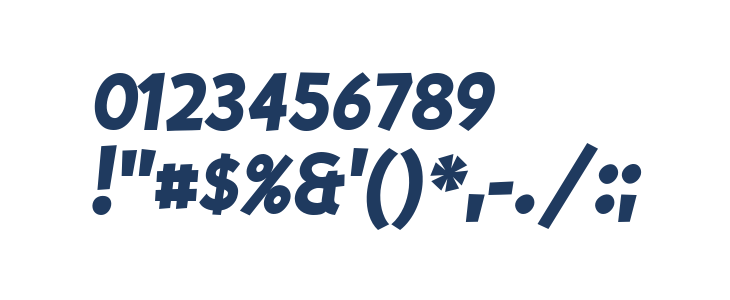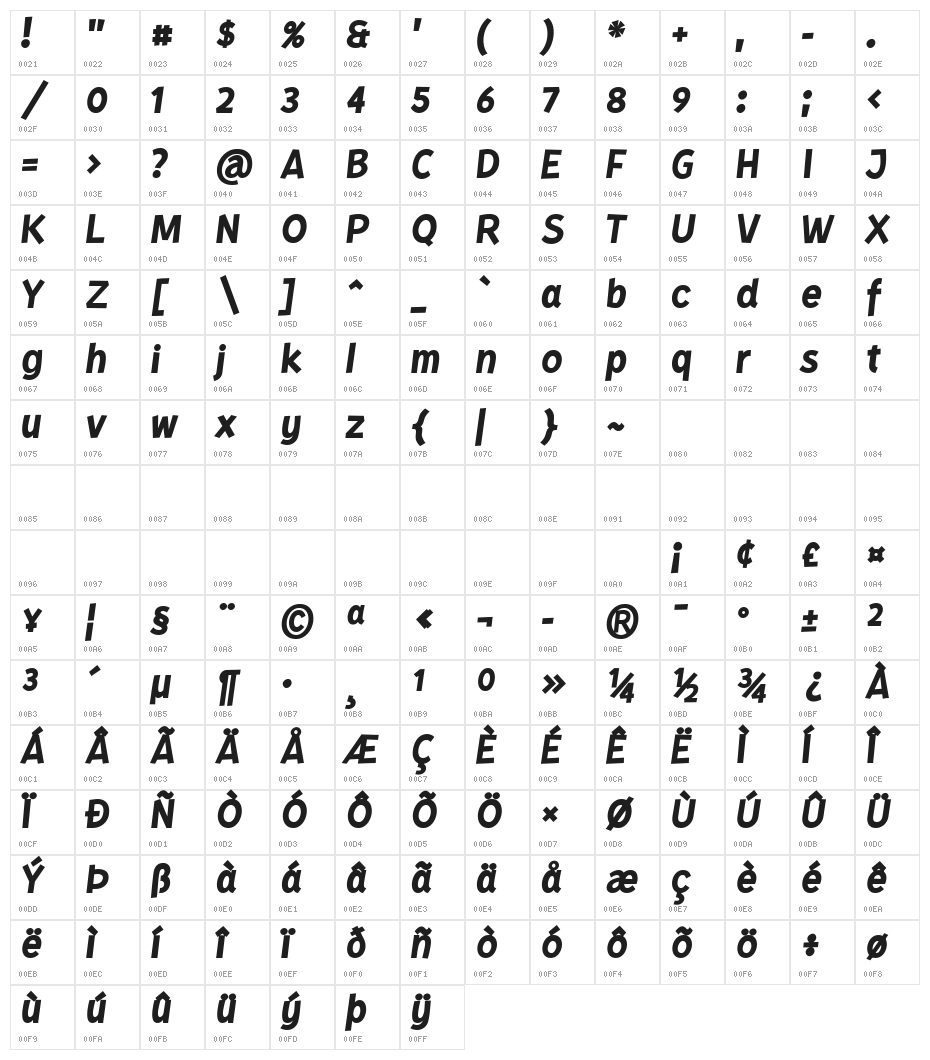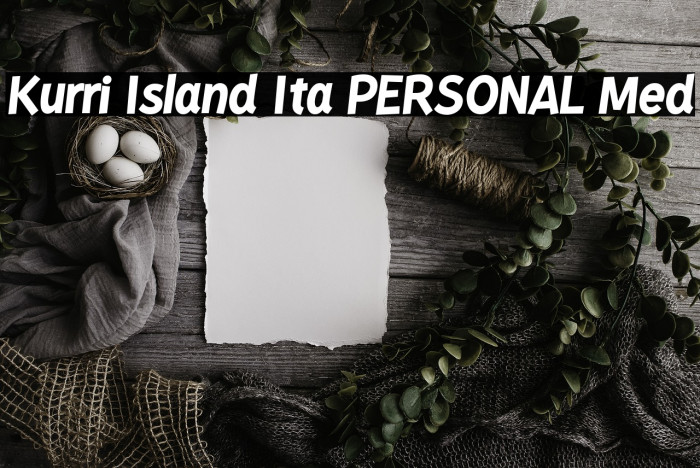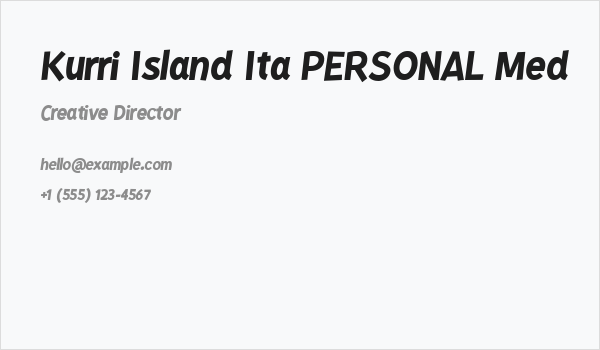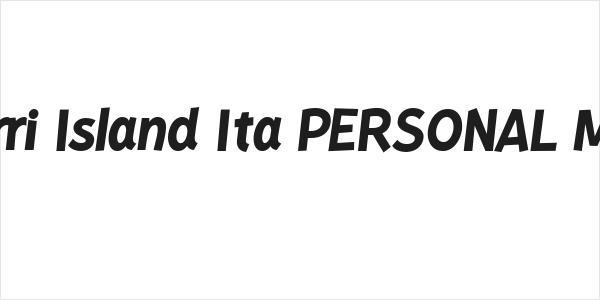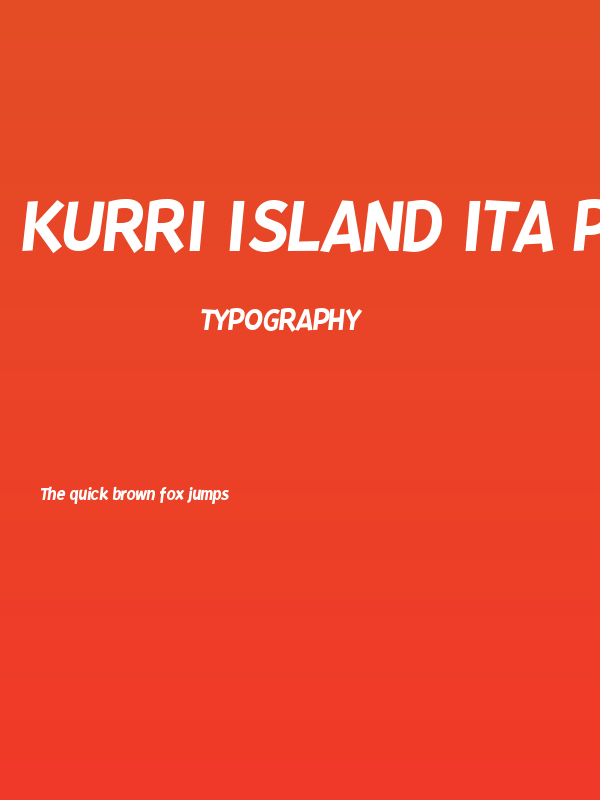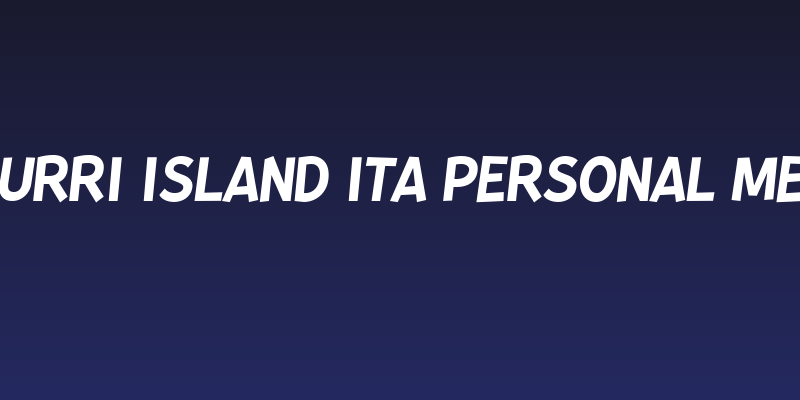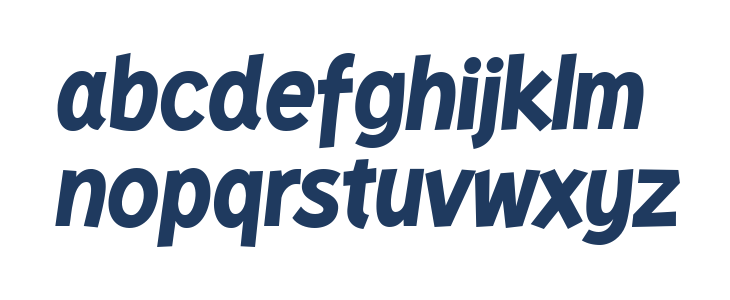
Kurri Island Ita PERSONAL Med Font
Kurri Island Ita PERSONAL Med Description
This font features a bold and dynamic style with a slight italic slant, giving it a sense of movement and energy. The characters are thick and robust, making them highly legible and impactful. The uppercase and lowercase letters maintain a consistent weight, providing a cohesive look across all text. The numbers and special characters are designed with the same boldness, ensuring uniformity in any composition. The font's overall appearance is modern and slightly aggressive, suitable for making strong visual statements.
| Use Case | Headlines, Logos, Advertising |
| Proposed Projects | Ideal for branding, advertising, headlines, and any project requiring a strong, impactful typeface. |